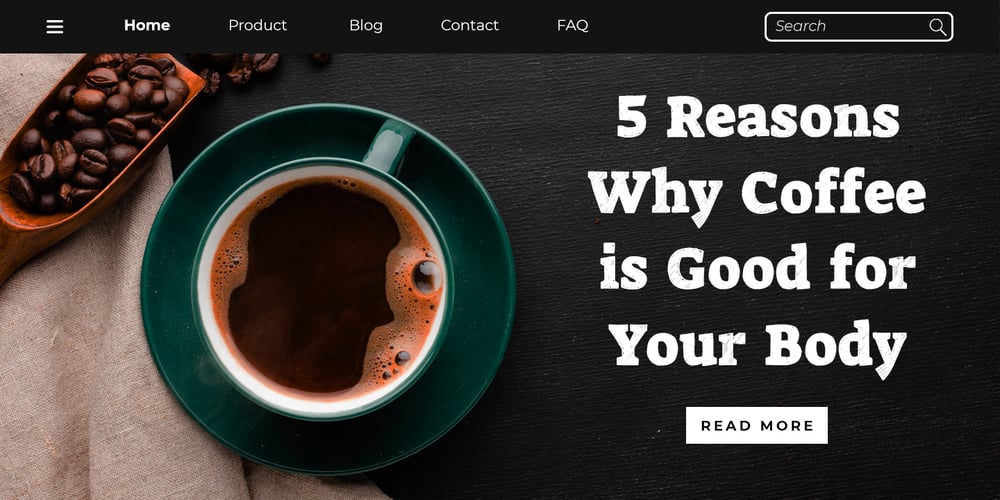
Sketchup Font Family was designed by Abdul Malik Wisnu and published by Almarkha Type. Sketchup contains 1 styles and family package options. Introducing our latest Sketch Display Slab called Sketchup Display Slab with Sketch taste can make your logotype become more interesting. inspired by the decorative arts and architecture movementSketchup fonts is perfect for your project and allows you to create designs, headlines, posters, logos, badges, t-shirts and many more that are beautiful. It is also best used for posts, logos, posters, certificates, labels and more.